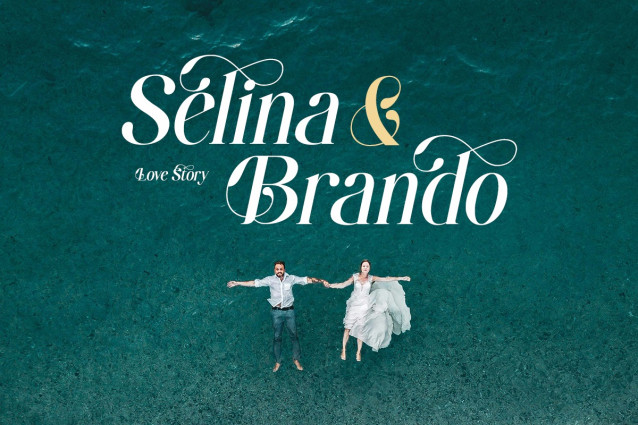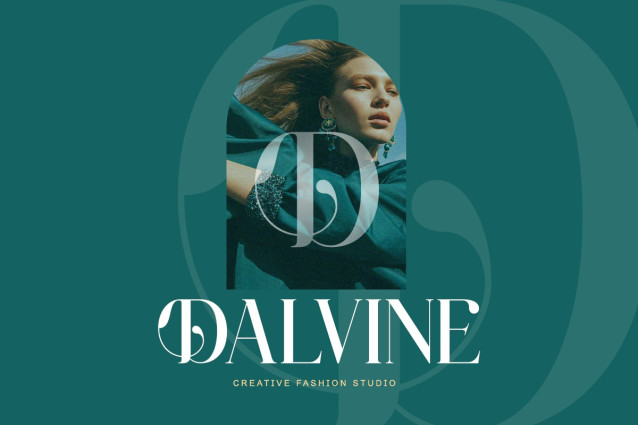
Aielenea Font
Aielenea Font a luxury serif font inspired by elegance and romance. With its flowing ligatures and refined serif structure, Aielenea brings softness and sophistication to modern branding and editorial design.
Perfect for projects that demand beauty, femininity, and timeless charm.